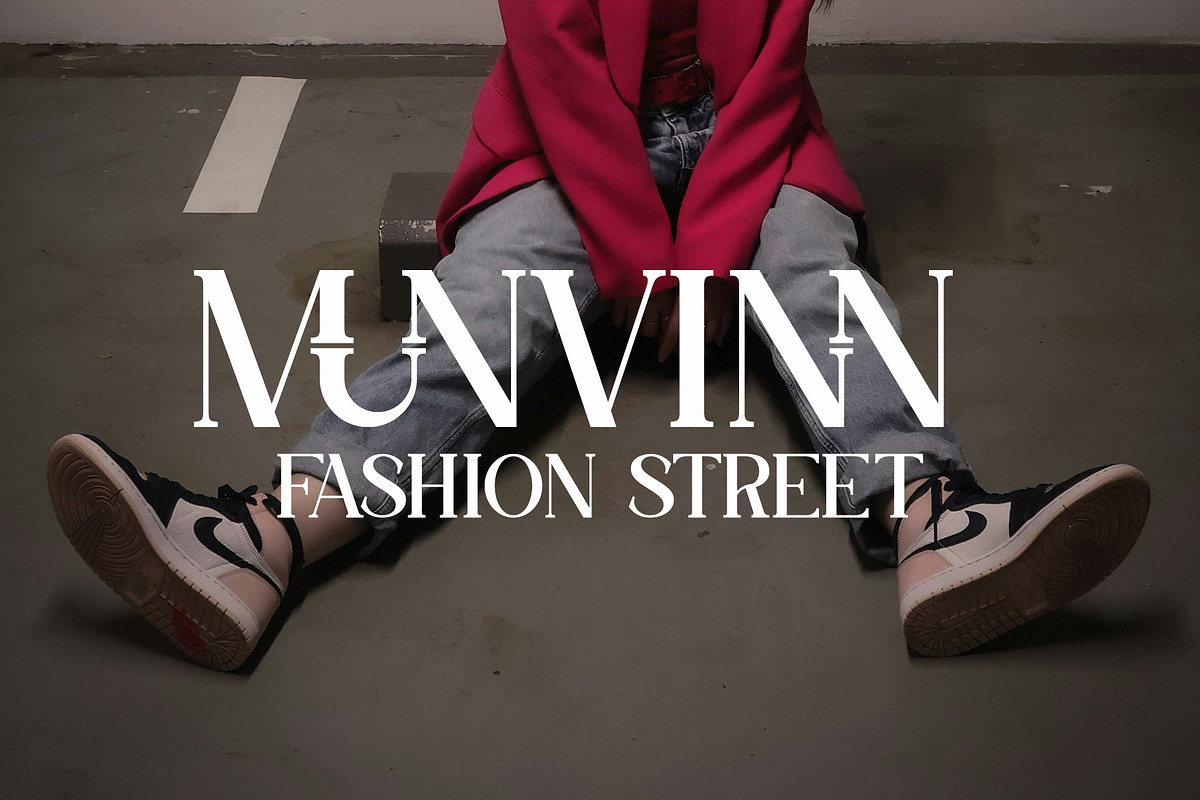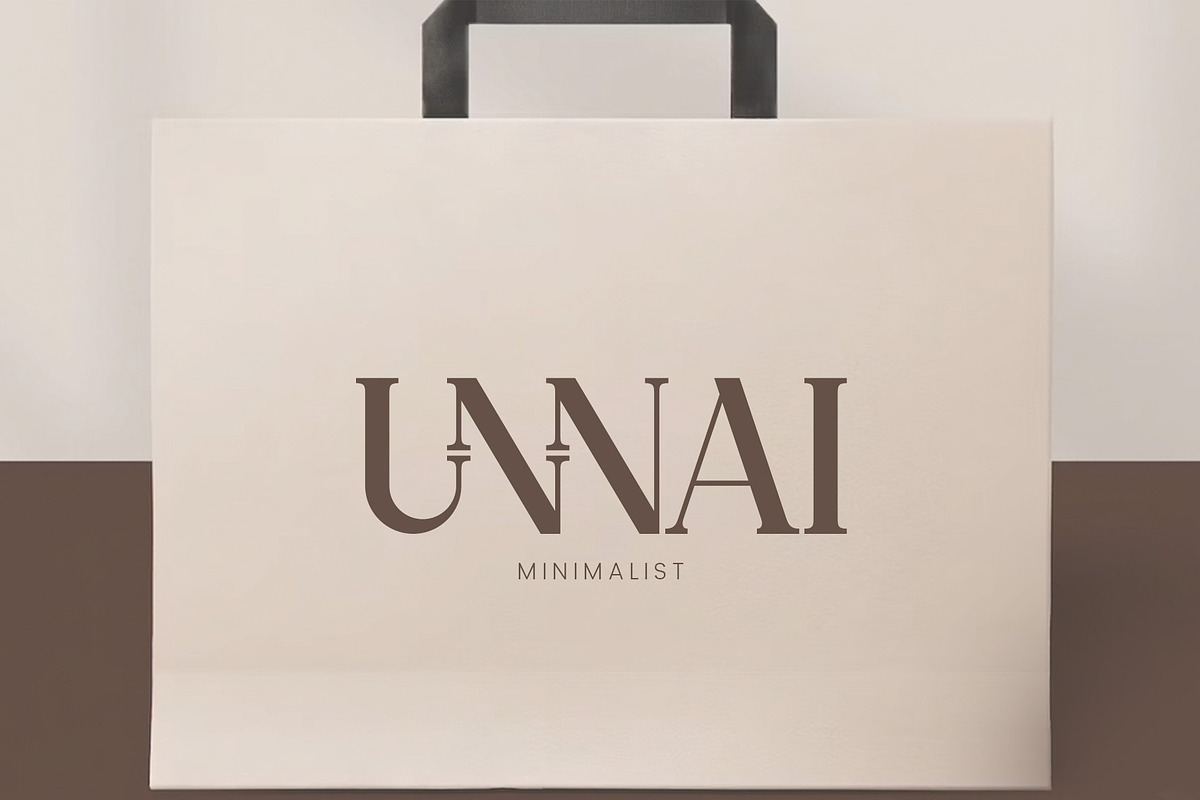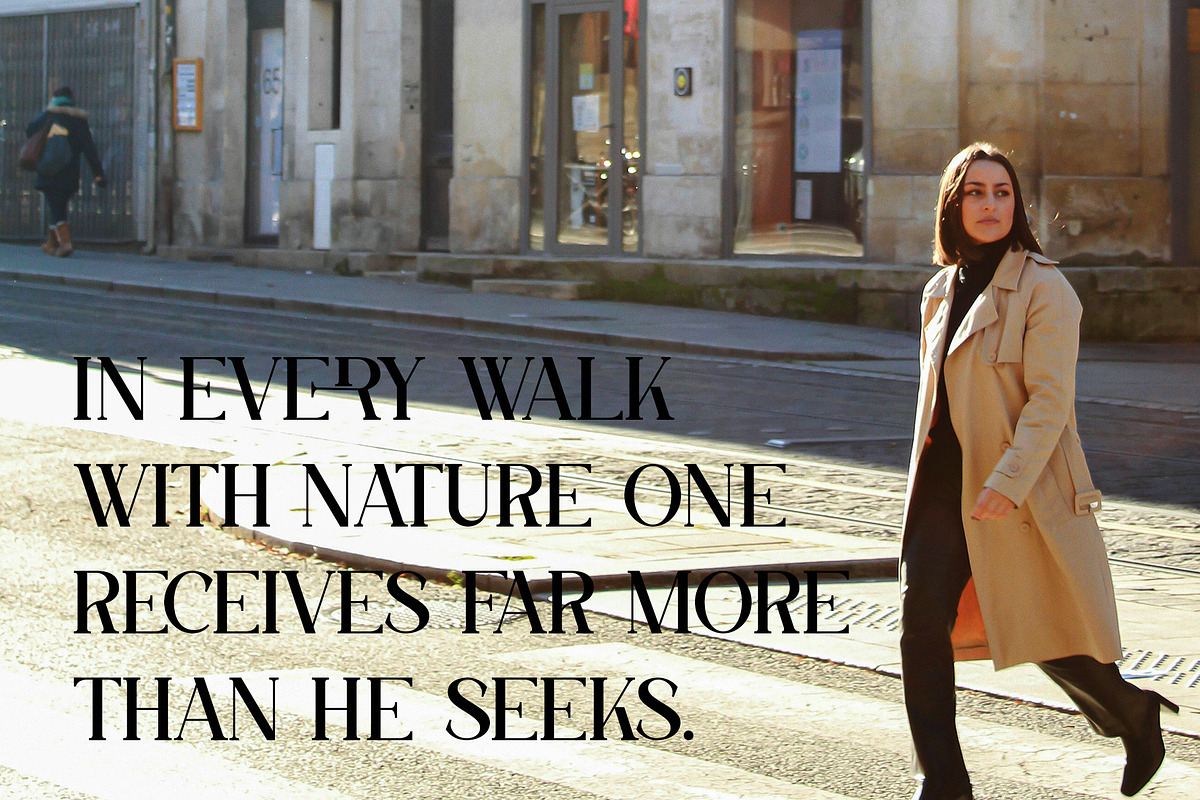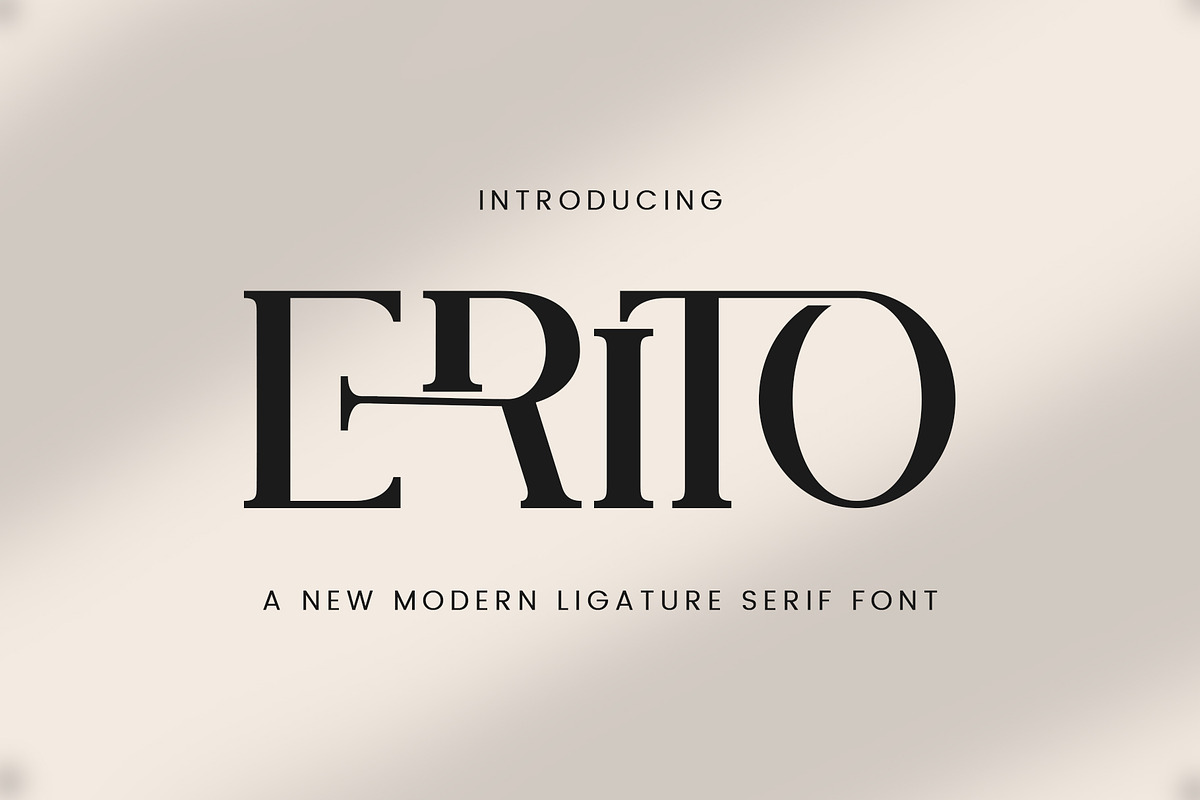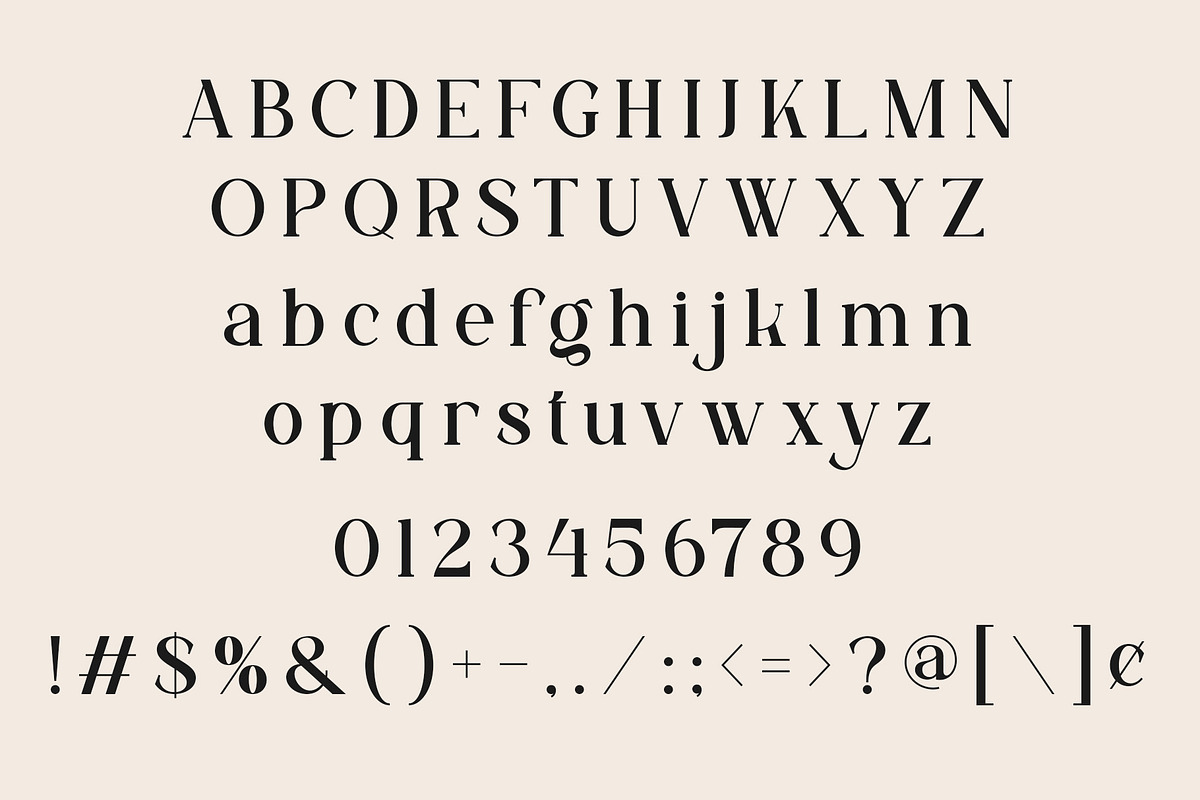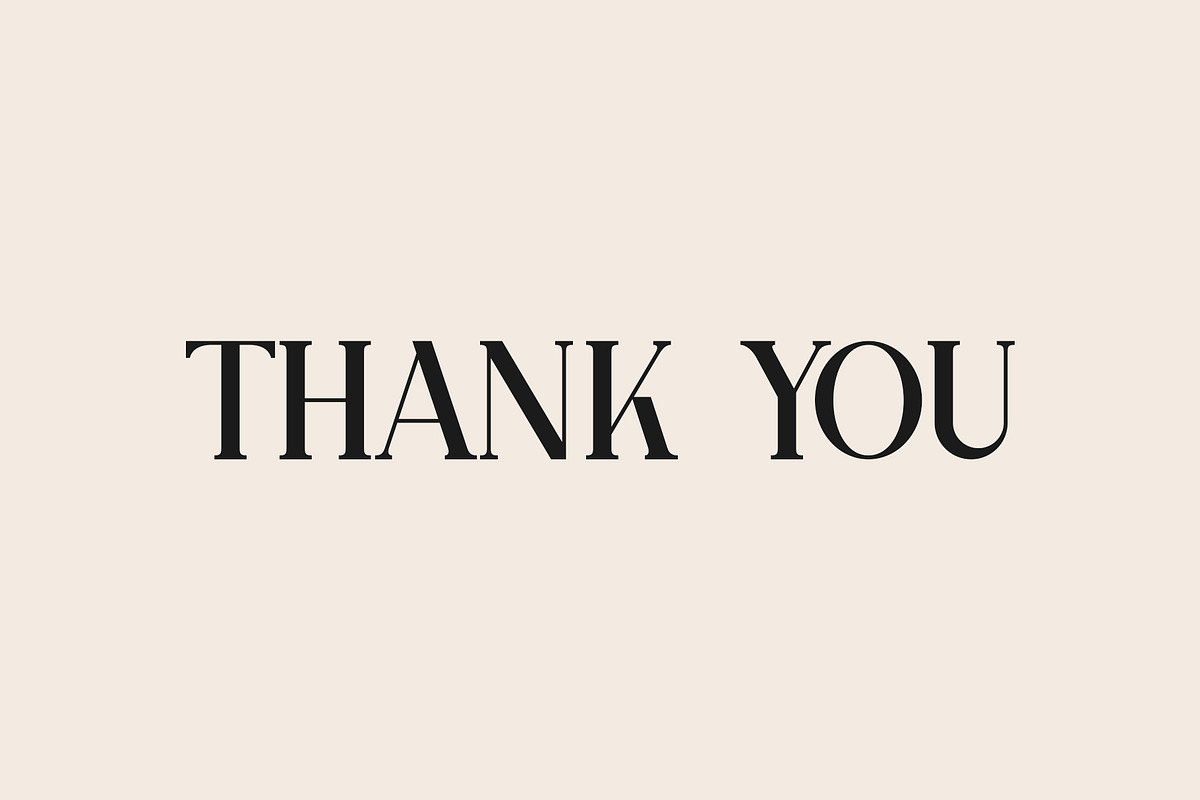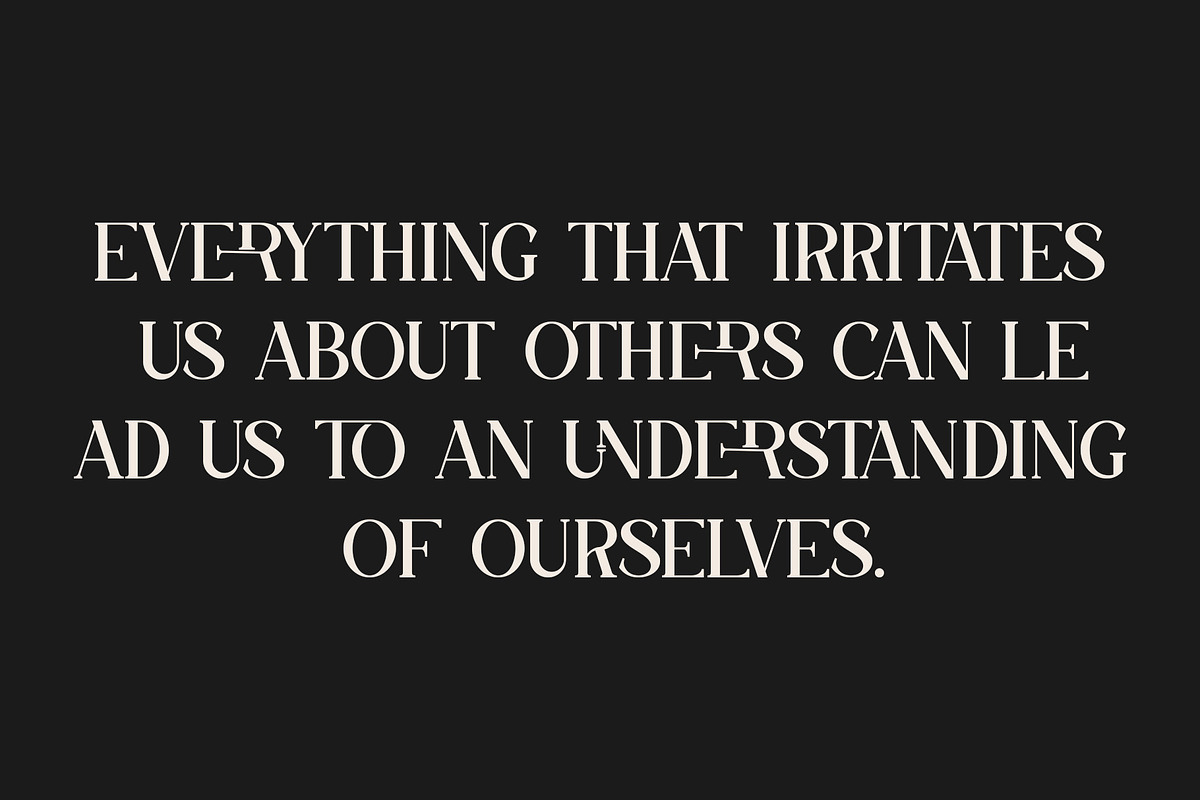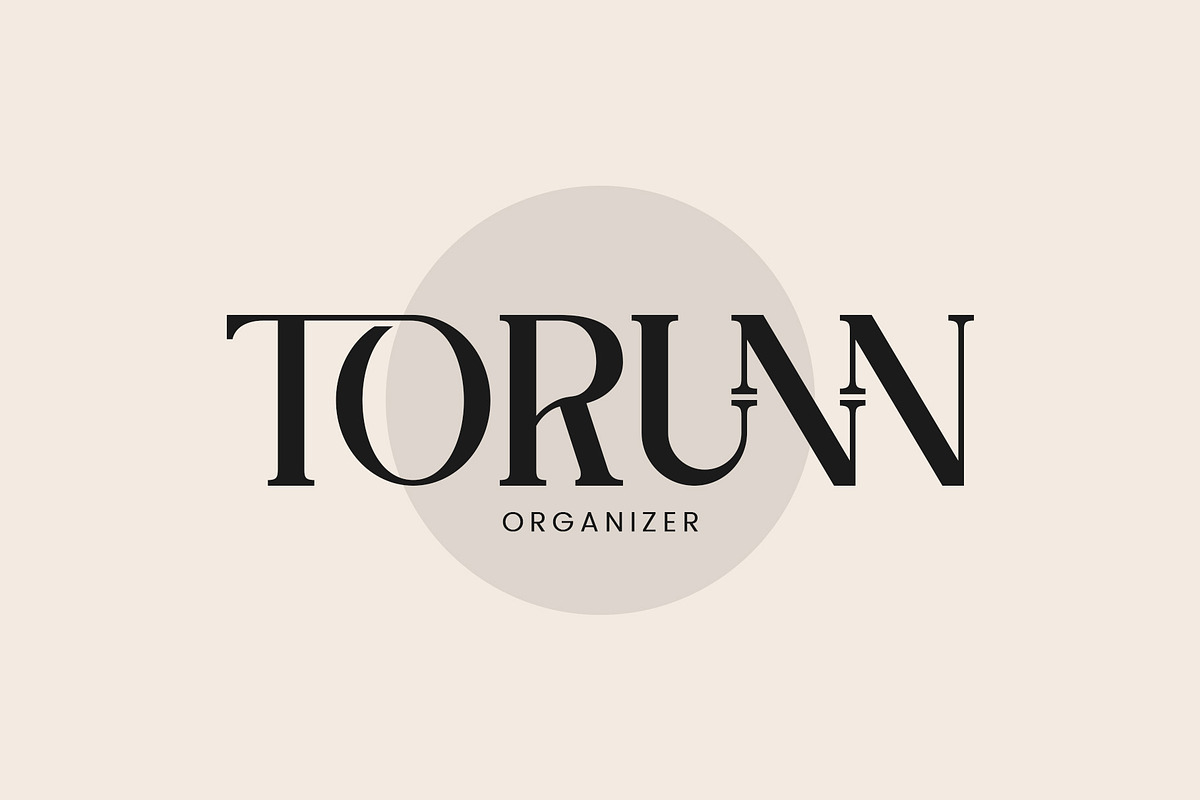
ERITO - Modern Ligature Typface
ERITO is a modern serif font crafted to bring elegance, sophistication, and timeless beauty into your designs. Featuring stylish ligatures and refined letterforms, this typeface delivers a luxurious visual experience that instantly elevates any creative project.
Designed with a perfect balance between classic serif aesthetics and contemporary minimalism, ERITO creates a clean yet expressive look that feels premium, fashionable, and highly professional.
Its unique ligature combinations add a distinctive personality to every word, making your typography appear more exclusive, artistic, and memorable.
Whether you are creating branding materials, logos, editorial layouts, or social media content, ERITO helps your designs stand out with effortless elegance.
Elegant modern serif style
Beautiful custom ligatures
Clean and minimalist design
Luxury and high-end aesthetic
Uppercase & lowercase letters
Luxury branding, logo design, fashion brands, beauty products, magazines, wedding invitations, social media graphics, editorial projects, packaging design, and premium visual identities.
ERITO is more than just a typeface — it’s a statement of style. Designed to make your brand look refined and professional, this font transforms ordinary text into stunning visual typography with a modern luxury feel.